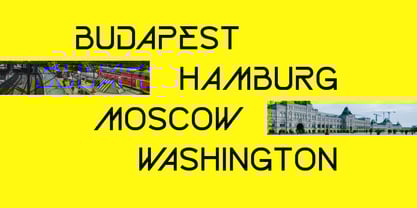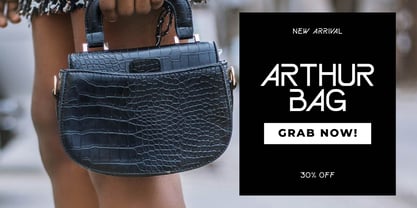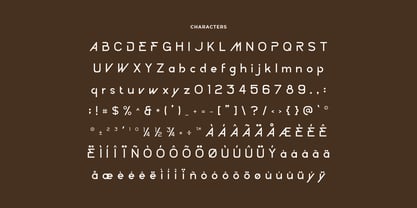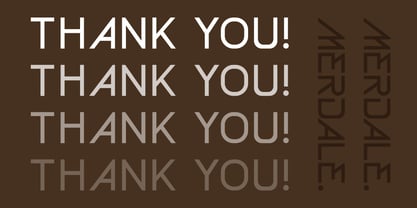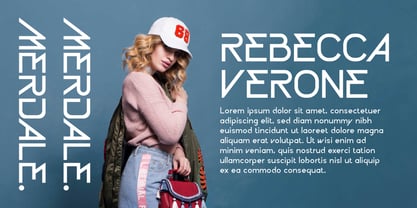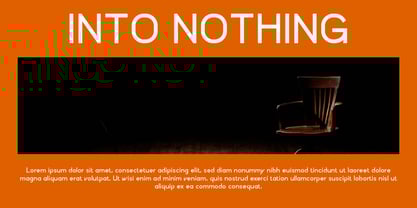
Merdale
by Artiveko
The Merdale Font Family was designed by Iwan Alwan and published by Artiveko. Merdale contains 2 styles and family package options.
Merdale is a modern sans serif font that blends simplicity with uniqueness. Designed to stand out without being overwhelming, Merdale features distinctive character shapes and stylish variation between uppercase and lowercase letters, giving your text a dynamic, eye-catching appeal. Whether you're crafting a high-end magazine layout, an elegant business card, or a bold poster design, Merdale adapts beautifully to any project that demands clarity with personality.
Equipped with extensive multilingual support, Merdale is ready for global communication. It also includes a wide range of ligatures and alternates, allowing designers to explore creative possibilities and enhance typographic expression. Its clean structure makes it ideal for both print and digital use, while the subtle quirks in its design bring a fresh and modern aesthetic. Let Merdale elevate your design with its professional yet playful character — it’s more than just a font; it’s a visual voice.
About Artiveko
Artiveko is a font design team based in Indonesia, comprised of several talented font designers who commenced their careers in the font design industry in 2020. With a dedicated focus on crafting fonts, the team members bring their collective expertise and passion to every project they undertake. Situated in Indonesia, Artiveko draws inspiration from the vibrant cultural landscape of the region, infusing their creations with unique flavors and aesthetics.The team's font collection encompasses a diverse range of styles, including serif, sans serif, handwritten, and script typefaces. Each typeface is meticulously crafted to meet the demands of modern design while offering versatility and functionality across various applications. Whether it's the classic elegance of serif fonts, the contemporary appeal of sans serif designs, the personal touch of handwritten scripts, or the expressive flourishes of script fonts, Artiveko ensures that every font reflects their dedication to quality and innovation.Artiveko's fonts have garnered recognition and acclaim, with their works being featured on prominent social media platforms like Creative Market. Through these platforms, the team has been able to connect with a global audience of designers and typographers, further amplifying their reach and influence in the industry. Their fonts are celebrated for their impeccable craftsmanship, attention to detail, and ability to elevate design projects with style and sophistication.As Artiveko continues to evolve and expand its font collection, the team remains committed to pushing the boundaries of typography and setting new standards of excellence. With a relentless focus on creativity, innovation, and collaboration, Artiveko strives to inspire and empower designers around the world with their distinctive and versatile font designs.